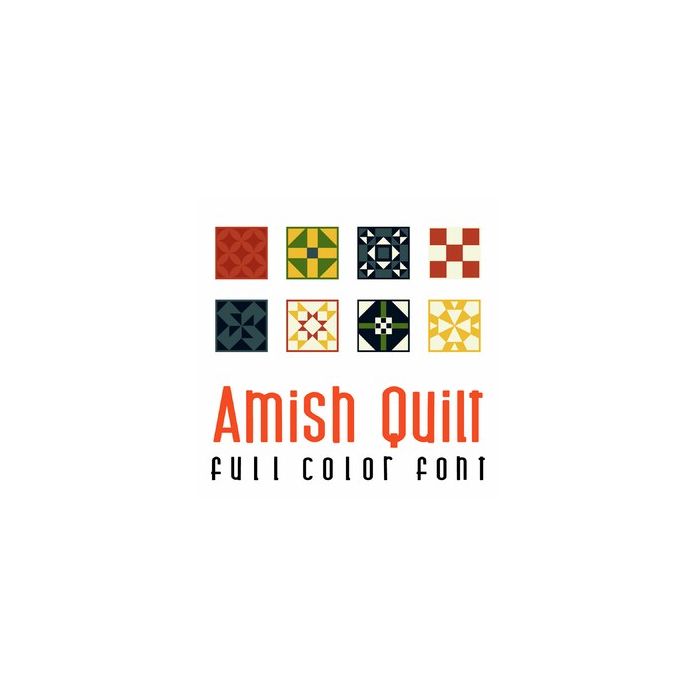
This fun full color doodlebat font features beautiful geometric quilted designs. Perfect for cards, crafts, gifts, decor, scrap book pages, planner stickers and more!